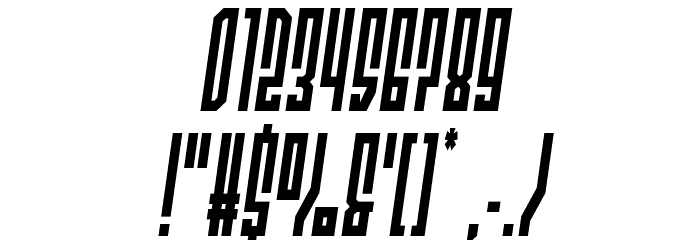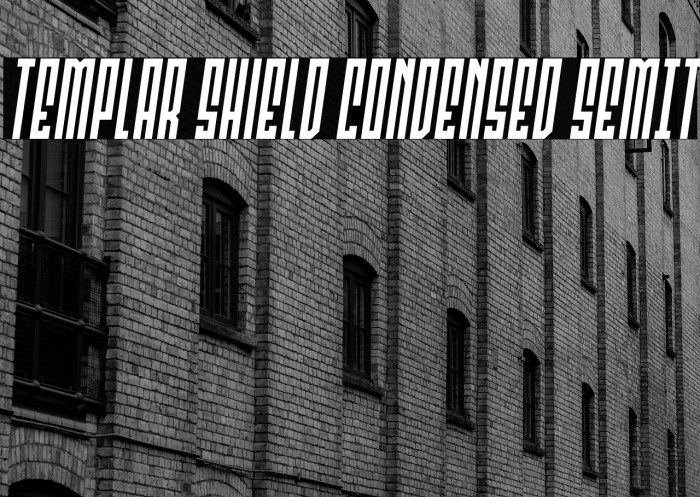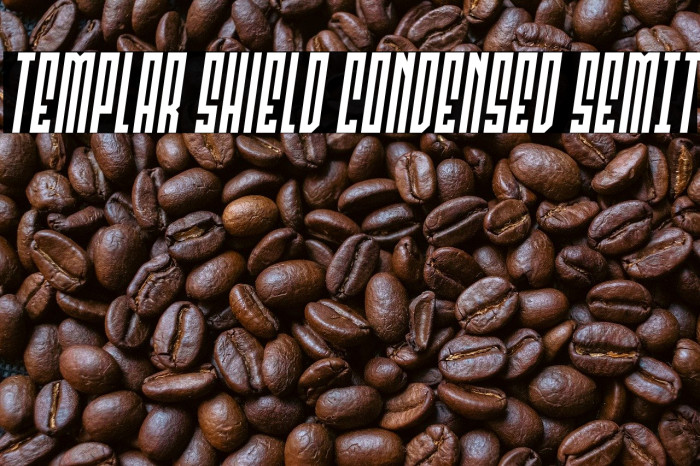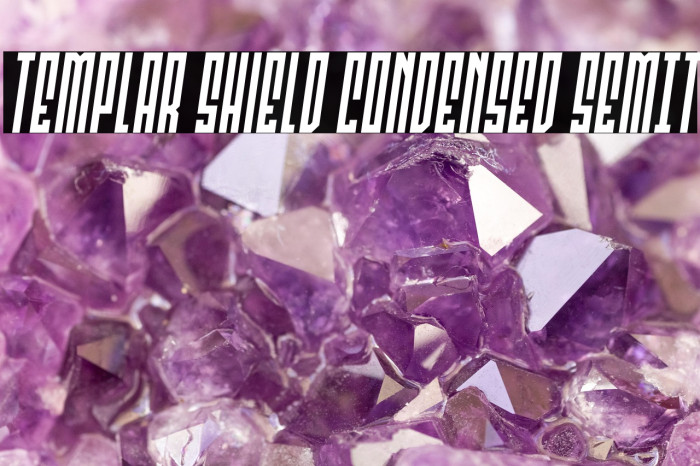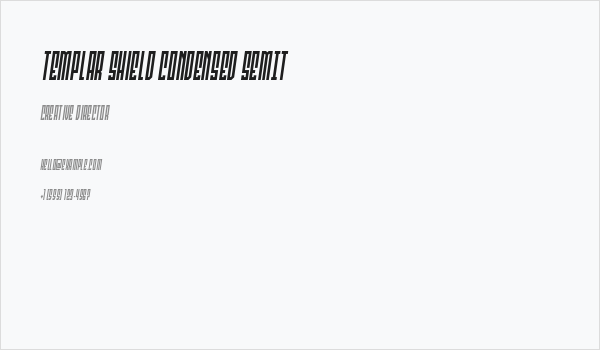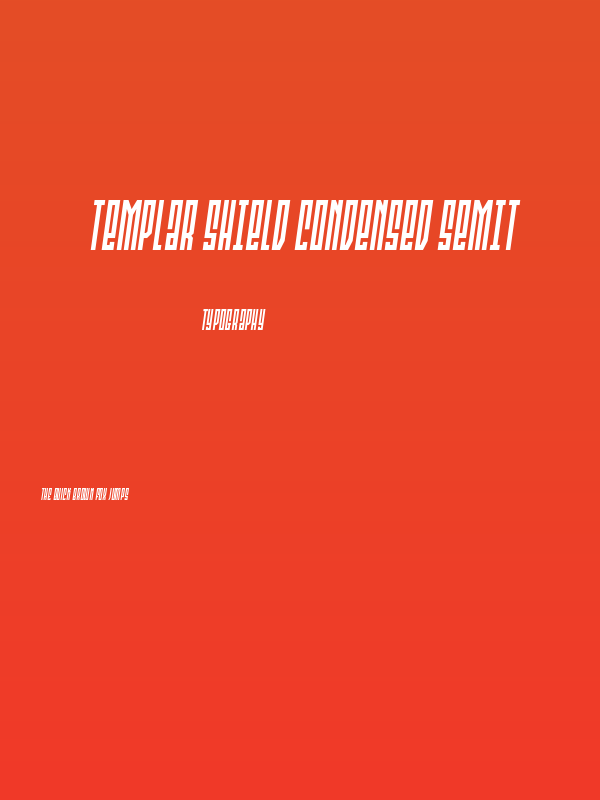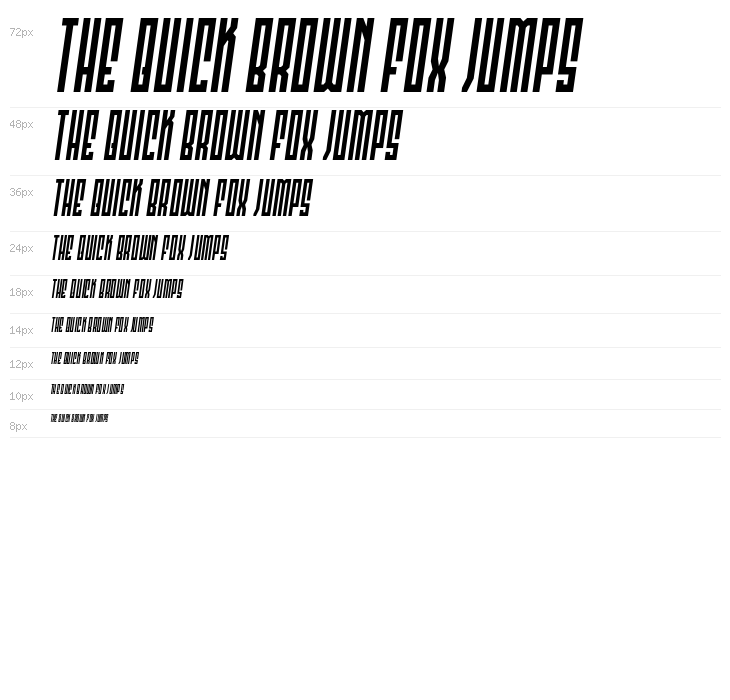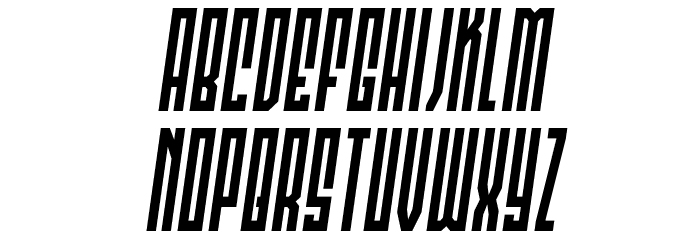
Templar Shield Condensed SemIt Font
Templar Shield Condensed SemIt Description
This font features a bold, condensed style with a distinct slant, giving it a dynamic and modern appearance. The characters are tightly spaced, enhancing the compact and streamlined look. The uppercase and lowercase letters maintain a uniform height, contributing to a cohesive visual flow. The numerals and special characters follow the same stylistic cues, ensuring consistency across all glyphs. The angular design and sharp edges convey a sense of strength and precision, making it suitable for impactful and attention-grabbing designs.